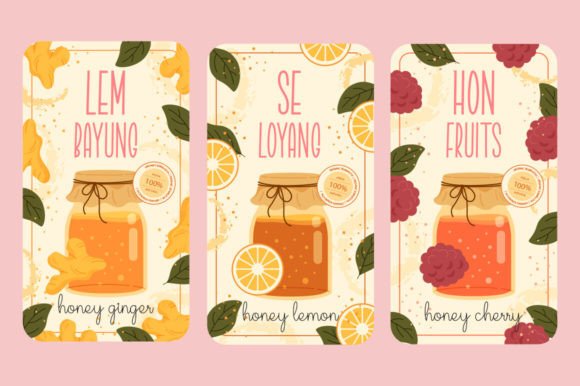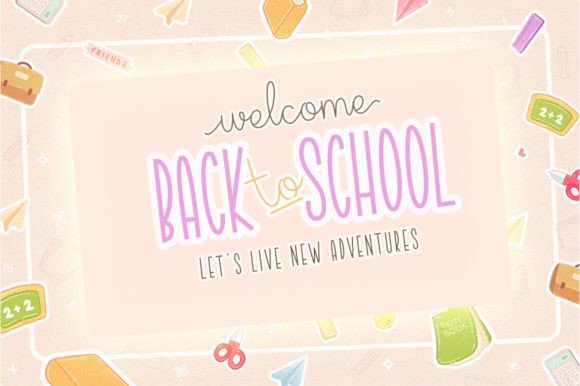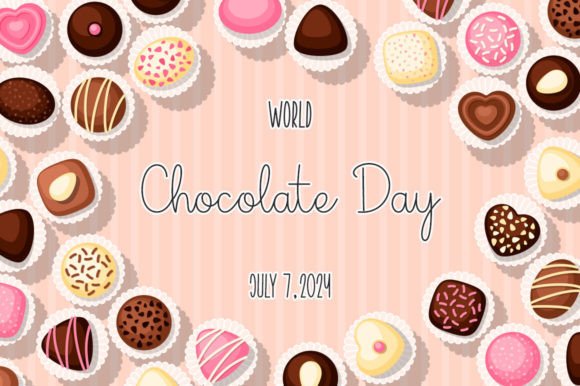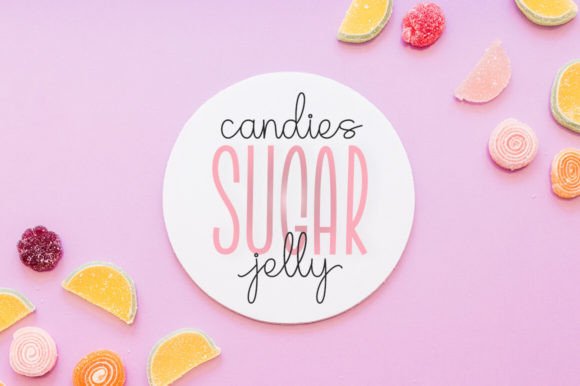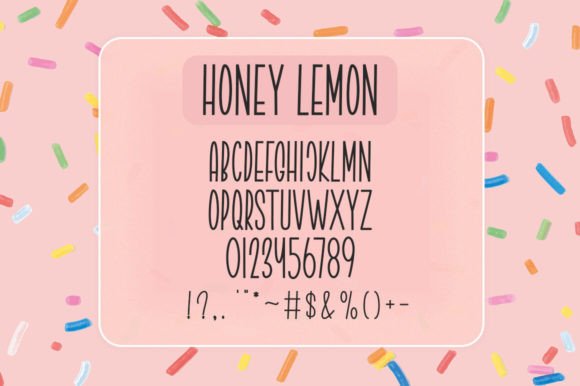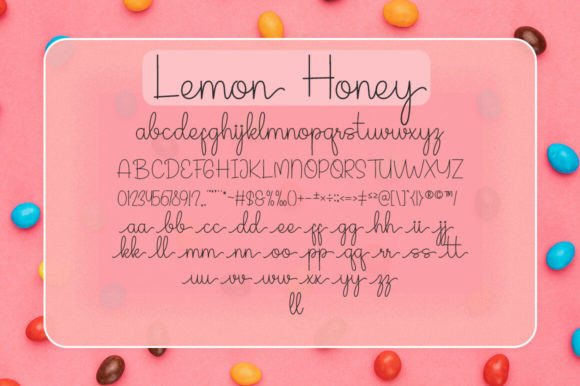
Introduction to Lemon Honey Font
Lemon Honey is a sweet and friendly handwritten font.
Its natural and unique style makes it incredibly fitting to a large pool of designs You can successfully use it for style quotes, wedding cards, magazines, fashion, creative branding, album covers, book covers, movie titles, and so many more.
Key Features of Lemon Honey Font
Why Choose Lemon Honey Font?